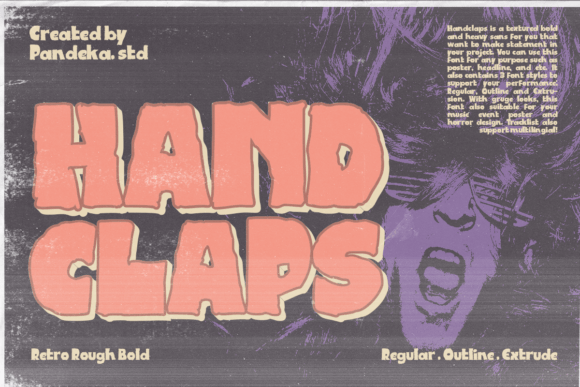
Introduction to Handclaps Font
Handclaps is a textured bold and heavy sans for you who want to make a statement in your project.
You can use this font for any purpose such as poster, headline, etc With gritty and rough looks, this font is also suitable for your music and album design.